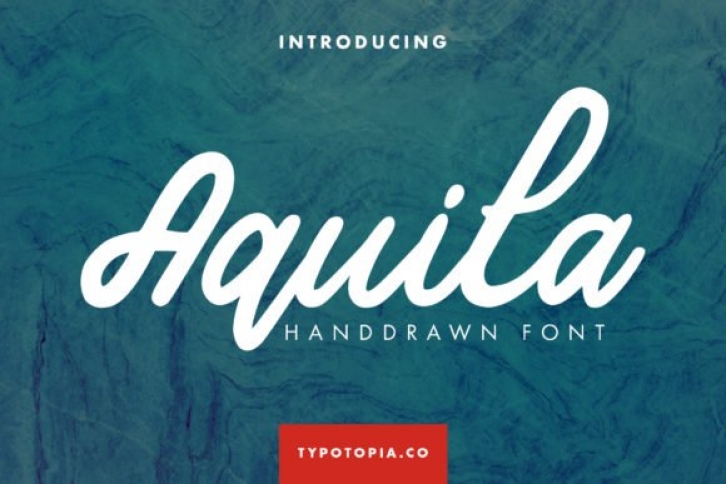
Aquila is a beautiful handwritten font, created with the help of a brush pen. Whether you’re using it for crafting, digital designing, presentations or greeting cards making, it’s perfect!